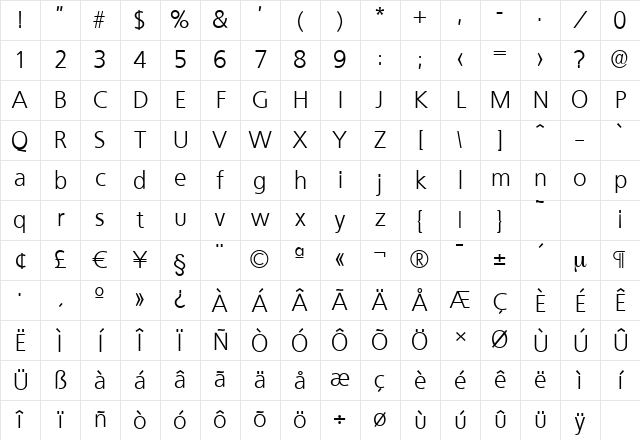
QuebecSerial-Light Regular Free Font
Design Context for QuebecSerial-Light
QuebecSerial-Light is a composed and adaptable typeface that performs quietly and consistently across a wide range of design contexts. Its slender proportions lend an understated elegance to any composition.
Pro Tip: Use QuebecSerial-Light in both headline and body roles to test its range before committing to a single application.